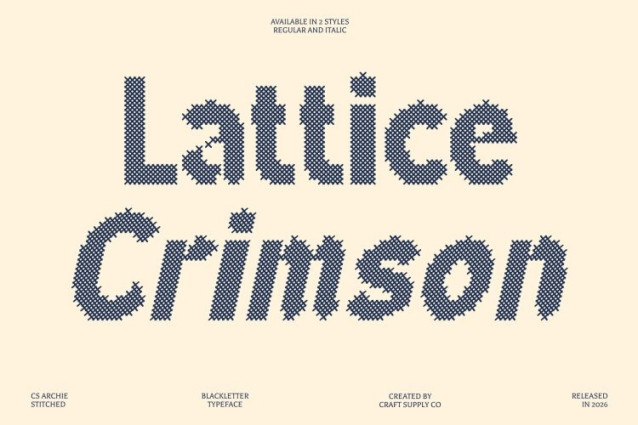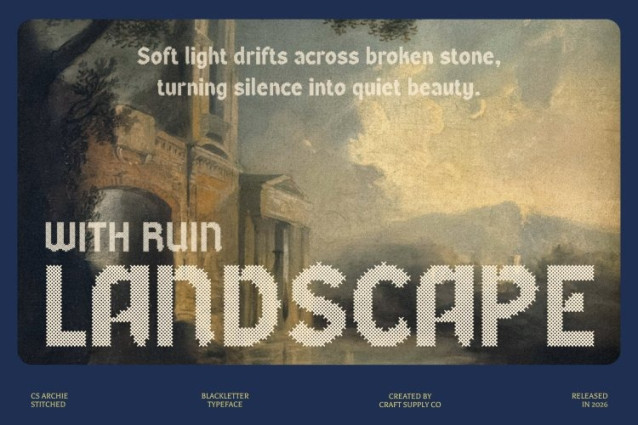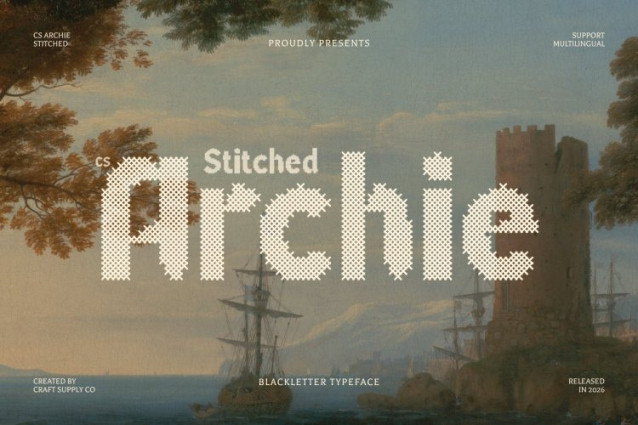
CS Archie Stitched Font
CS Archie Stitched Font  – This is a modern Blackletter display font that blends classic elegance with bold contemporary strength. Its prominent letterforms create a commanding presence while maintaining the refined sophistication associated with traditional Blackletter typography. Enhanced with a stitched style inspired by thread sewn or embroidered on fabric, this version introduces a handcrafted dimension that softens the bold structure with warmth and character.
Bold Forms with Embossed Stitch Texture
The strong, striking letterforms of this font are enriched by a distinctive cross-shaped stitch pattern, creating an embossed and structured texture across each character. This stitched detailing gives the font a tactile, fabric-like appearance, adding a classic, nostalgic, relaxed, and warm impression while preserving its authoritative visual impact.
Sophisticated and Commanding Presence
Designed to deliver a powerful statement, this font combines dramatic Blackletter structure with a modern sense of clarity and confidence. The balance between bold strokes and stitched texture results in a font that feels both prestigious and expressive, perfect for designs that require attention and distinction.
Perfect for High-Impact and Creative Projects
This is ideal for luxury branding, formal invitations, event posters, editorial headlines, clothing logos, and promotional materials that demand a bold and elegant identity. The stitched aesthetic also expands its versatility for craft-themed designs and creative visual projects.